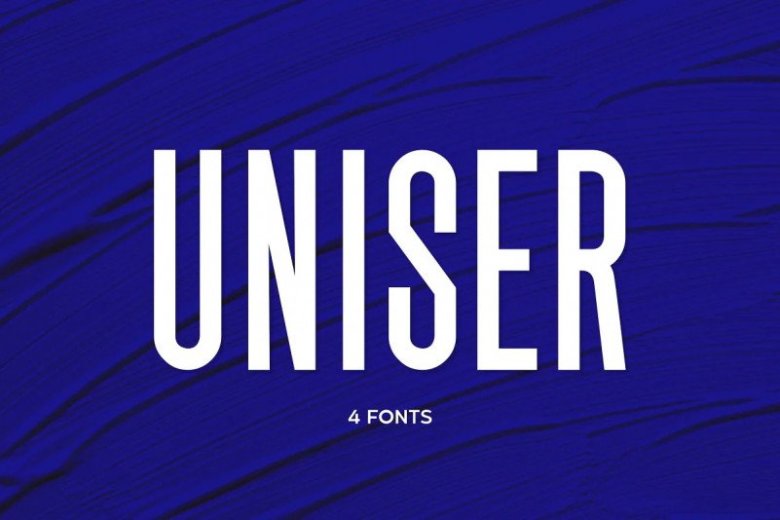
Uniser Font
This typeface is a strong all caps display font that is perfect for display type and contemporary branding. Uniser Font is inspired by famous logos of shoes and brands that have very strong characteristics, Uniser has 4 styles that allow you to get a job with satisfying results. very suitable for posters, tshirt, packaging, branding, logotype and more.